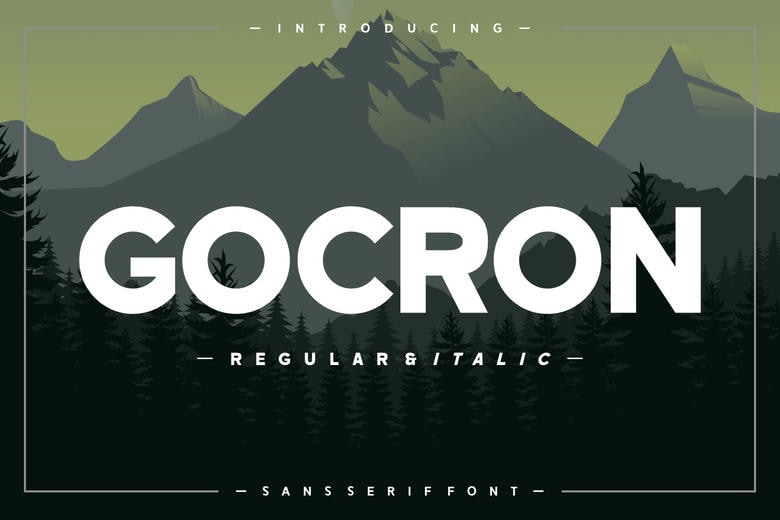
Gocron Font
Gocron is a beautiful sans serif typeface. This font is full of inimitable elegance with its thick and bold strokes that bring modern typography to a new level. In the world of photography, it provides a final touch, creating clothing descriptions or verifying book jackets with graceful ease. Be it branding or on a greeting card, Gocron has a clean and smooth look that easily attracts the attention of the reader.
It’s an ideal choice for magazine covers or a logotype, seamlessly blending into an entire packaging design or uplifting a simple quote. Being a trendsetter in t-shirt typography or a constant companion to your lovely greetings, the multi-tasking “Gocron” is the answer. It welcomes other languages with open arms with multilingual support, which is characteristic of a sophisticated smell that may remind you of a luxurious perfume.
The “Gocron” font family enraptures with its regular and italic style, ready to add a touch of perkiness to every medium it adorns, transforming any project into harmonious symphony of sophistication.
Gocron Sans Serif Font